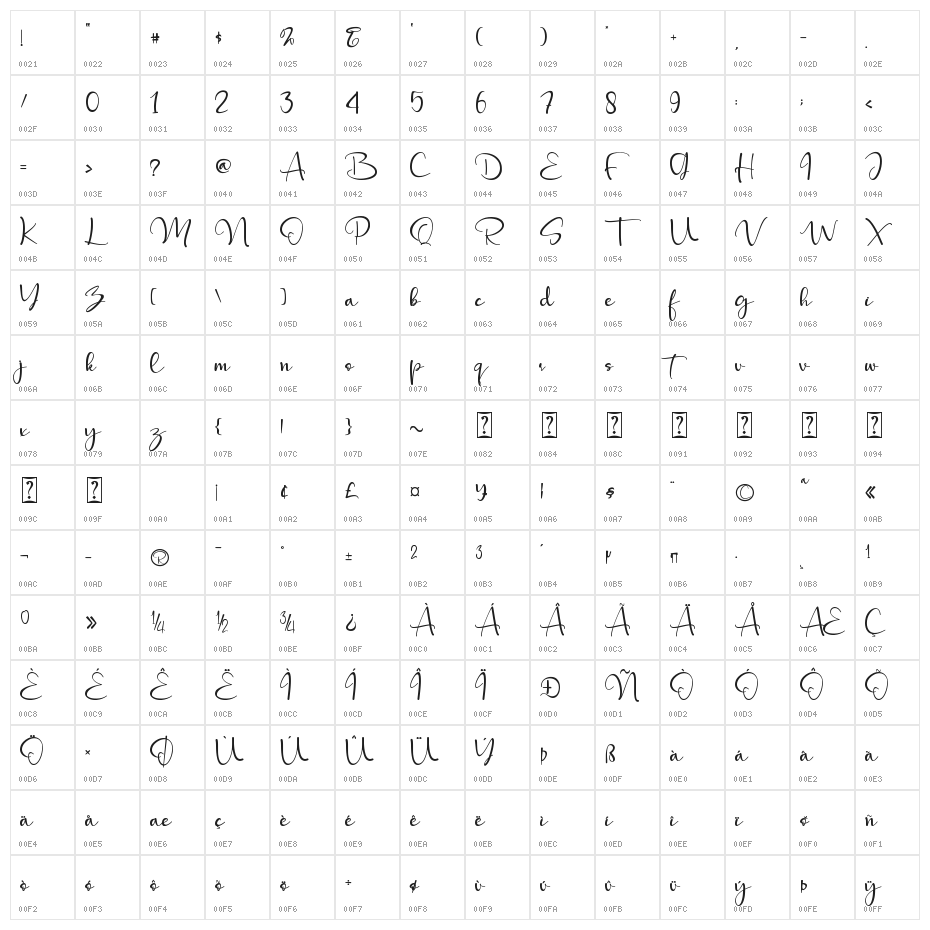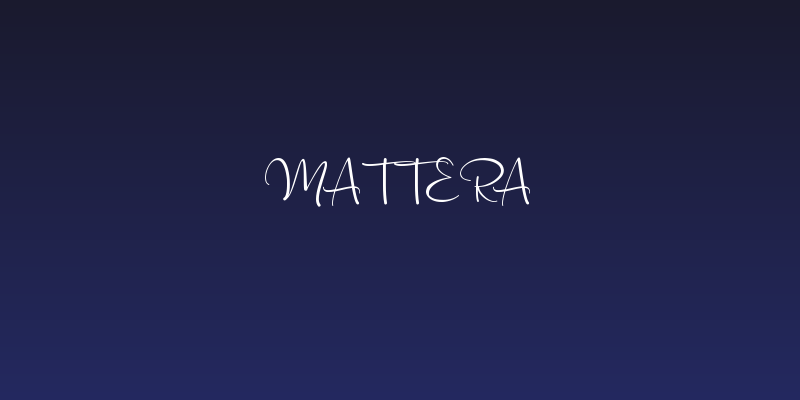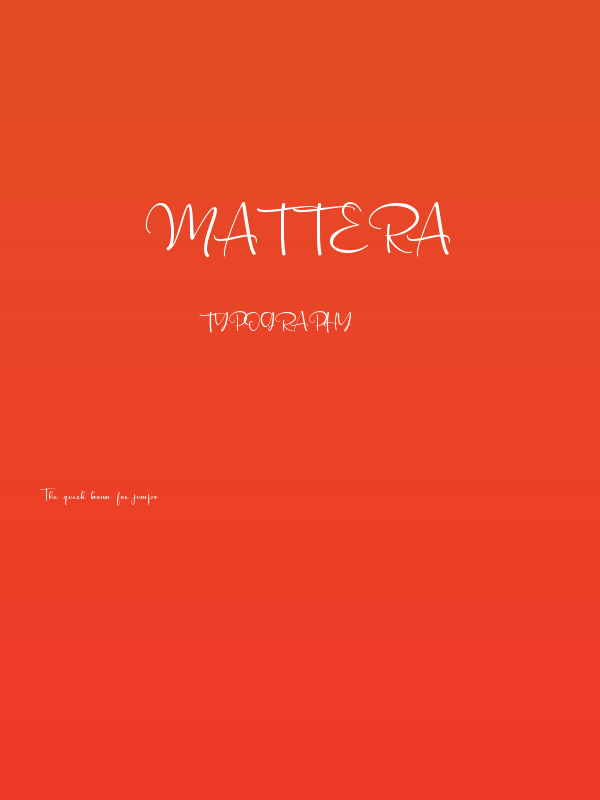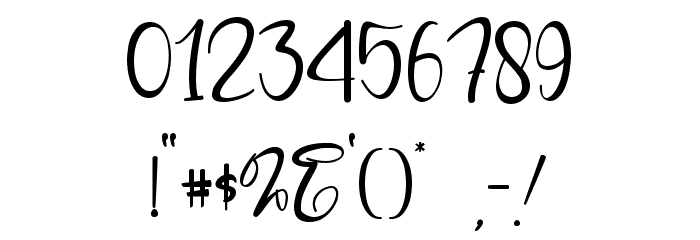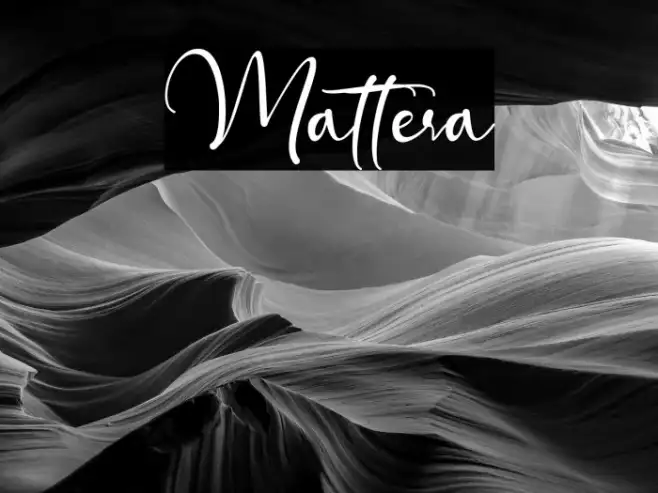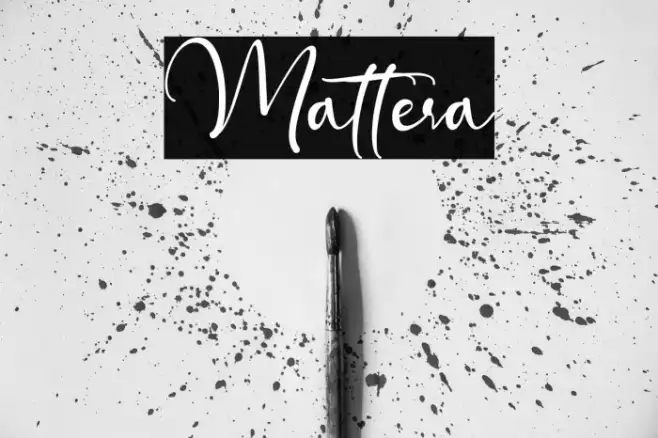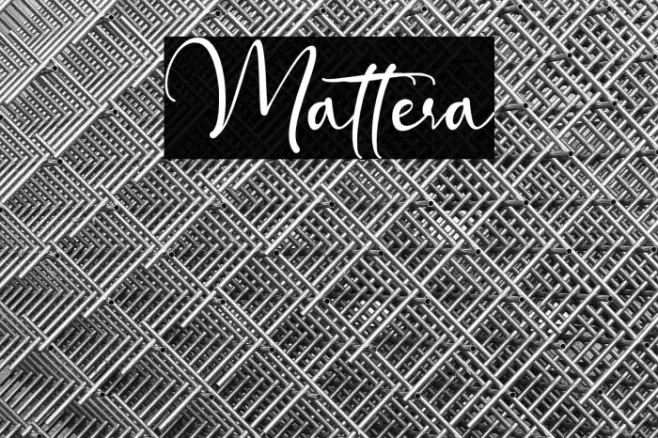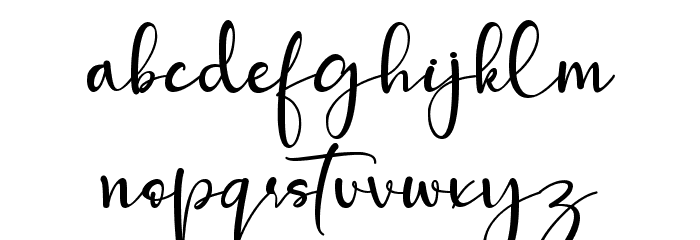
Mattera Font
Mattera Description
This font features a lively and elegant script style, characterized by its fluid and connected letterforms. The uppercase letters exhibit a graceful and sophisticated flair, with sweeping curves and loops that add a touch of drama. The lowercase letters maintain a consistent flow, enhancing readability while retaining a stylish appearance. The numerals are distinct and well-balanced, complementing the overall aesthetic. Special characters are thoughtfully designed, integrating seamlessly with the rest of the typeface. This font exudes a sense of creativity and elegance, making it suitable for a variety of design projects.
| Overall Style | Elegant |